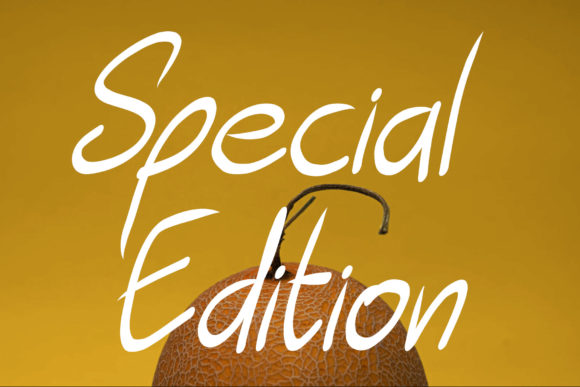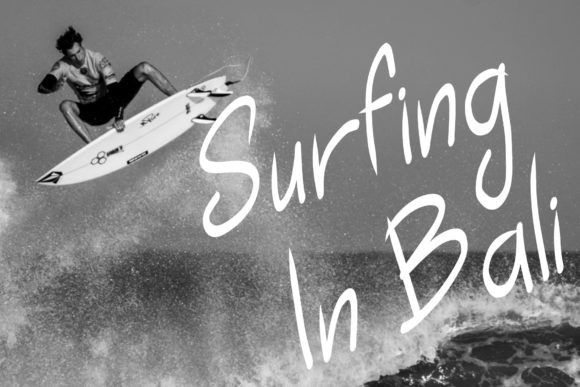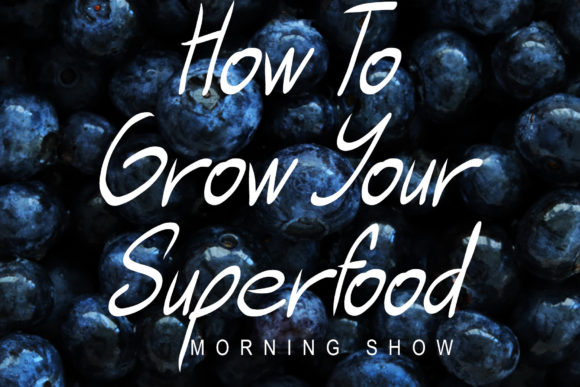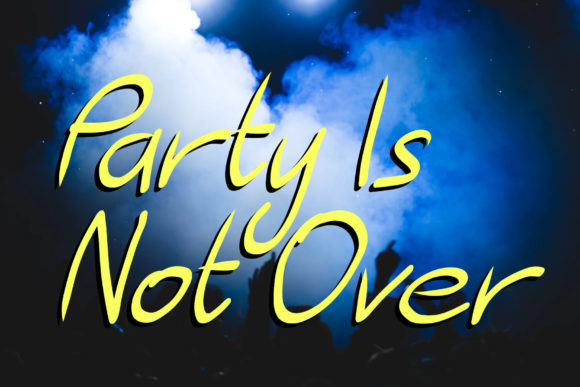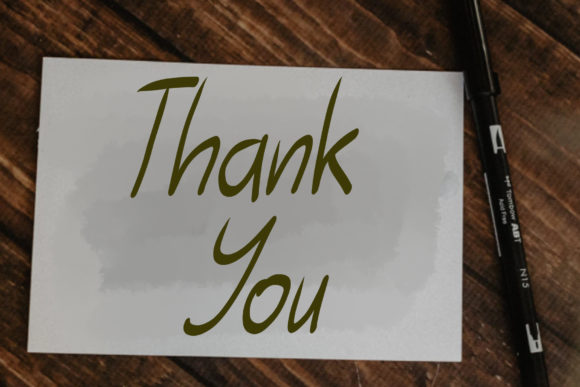
Introducing Grande Melon Font: The Sweet and Friendly Handwritten Font for Your Creative Projects
Are you a designer, crafter, or DIY enthusiast looking for a font that can add a personal touch to your creative projects? Look no further than Grande Melon Font, a sweet and friendly handwritten font that’s perfect for a wide range of designs. With its natural and unique style, Grande Melon Font is incredibly versatile and can be used in various contexts, from crafting and DIY projects to digital designs and marketing materials.
The Characteristics of Grande Melon Font
Grande Melon Font is a handwritten font that exudes warmth and friendliness. Its natural and unique style makes it stand out from more traditional fonts, and its sweetness is sure to capture the hearts of your audience. The font’s flowing lines and curves give it a soft, approachable feel that’s perfect for designs that require a personal touch.
One of the key benefits of Grande Melon Font is its versatility. Its unique style makes it fitting for a large pool of designs, from rustic and vintage-inspired projects to modern and minimalist designs. Whether you’re creating a logo, a poster, a social media graphic, or a craft pattern, Grande Melon Font is sure to add a touch of personality and whimsy to your design.
The Benefits of Using Grande Melon Font
So, why choose Grande Melon Font for your creative projects? Here are just a few benefits of using this sweet and friendly font:
- Unique and eye-catching: Grande Melon Font’s natural and unique style makes it stand out from more traditional fonts, ensuring that your designs will grab attention and leave a lasting impression.
- Versatile: Grande Melon Font can be used in a wide range of designs, from crafting and DIY projects to digital designs and marketing materials.
- Easy to read: Despite its unique style, Grande Melon Font is easy to read, making it perfect for designs that require a clear and concise message.
- Personal touch: Grande Melon Font adds a personal touch to your designs, making them feel more approachable and relatable.
How to Use Grande Melon Font in Your Designs
Grande Melon Font is incredibly easy to use in your designs, and its versatility means that it can be used in a wide range of contexts. Here are just a few ideas for using Grande Melon Font:
- Crafting and DIY projects: Use Grande Melon Font to add a personal touch to your craft patterns, tutorials, and project plans.
- Digital designs: Use Grande Melon Font in your social media graphics, blog posts, and website designs to add a touch of personality and whimsy.
- Marketing materials: Use Grande Melon Font in your marketing materials, such as brochures, flyers, and business cards, to add a personal touch and make your brand stand out.
- Stationery and paper crafts: Use Grande Melon Font to create beautiful stationery, journals, and paper crafts that are perfect for gift-giving or personal use.
Tips for Getting the Most Out of Grande Melon Font
To get the most out of Grande Melon Font, here are a few tips to keep in mind:
- Experiment with different colors: Grande Melon Font looks great in a variety of colors, so don’t be afraid to experiment and find the perfect hue for your design.
- Pair with other fonts: Grande Melon Font pairs well with other fonts, so try combining it with a sans-serif font for a modern look or a serif font for a more traditional look.
- Use it sparingly: While Grande Melon Font is a beautiful font, it can be overwhelming if used too much. Use it sparingly to add a touch of personality to your design.
In conclusion, Grande Melon Font is a sweet and friendly handwritten font that’s perfect for designers, crafters, and DIY enthusiasts. Its natural and unique style makes it incredibly versatile, and its ease of use makes it perfect for a wide range of designs. Whether you’re creating a logo, a poster, a social media graphic, or a craft pattern, Grande Melon Font is sure to add a touch of personality and whimsy to your design.